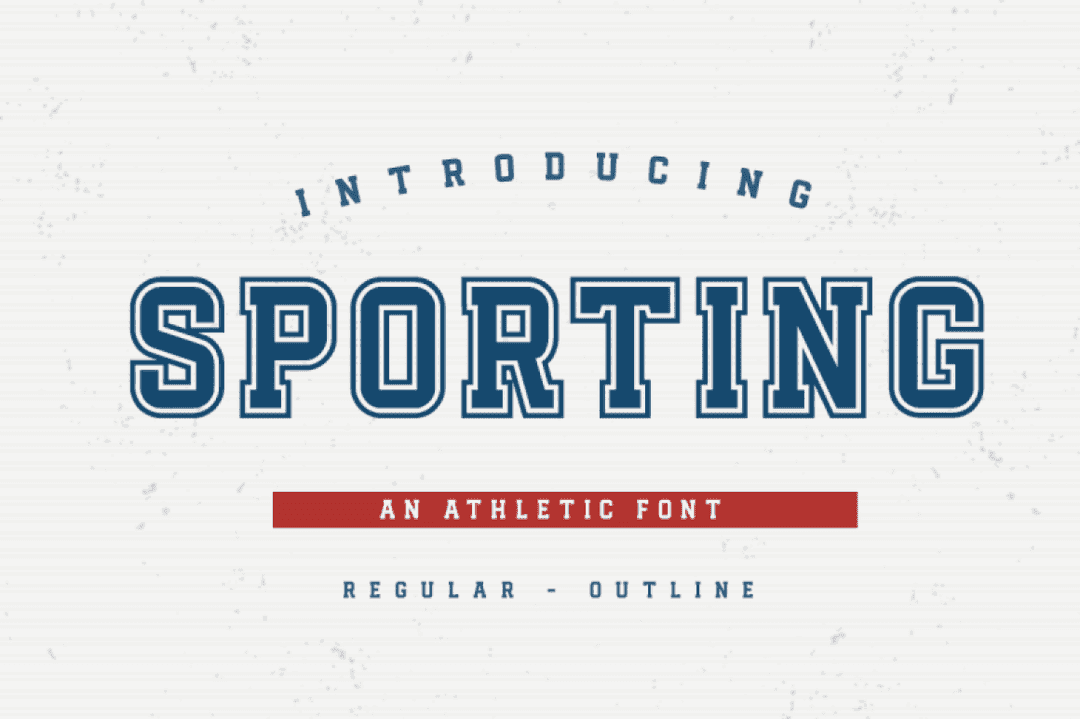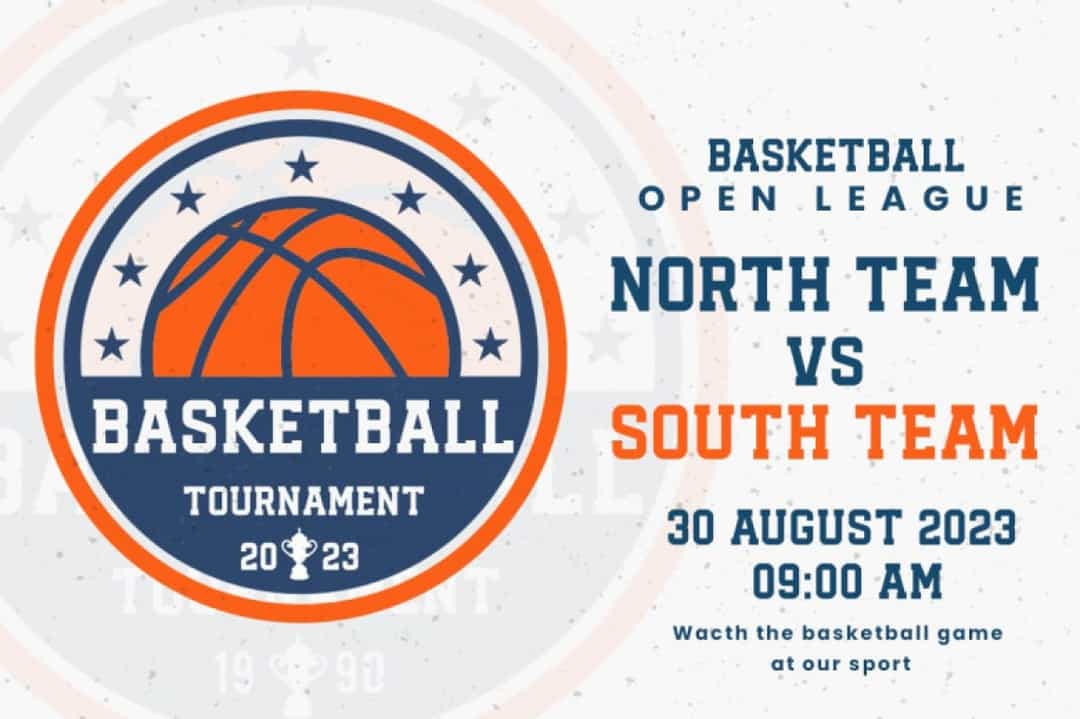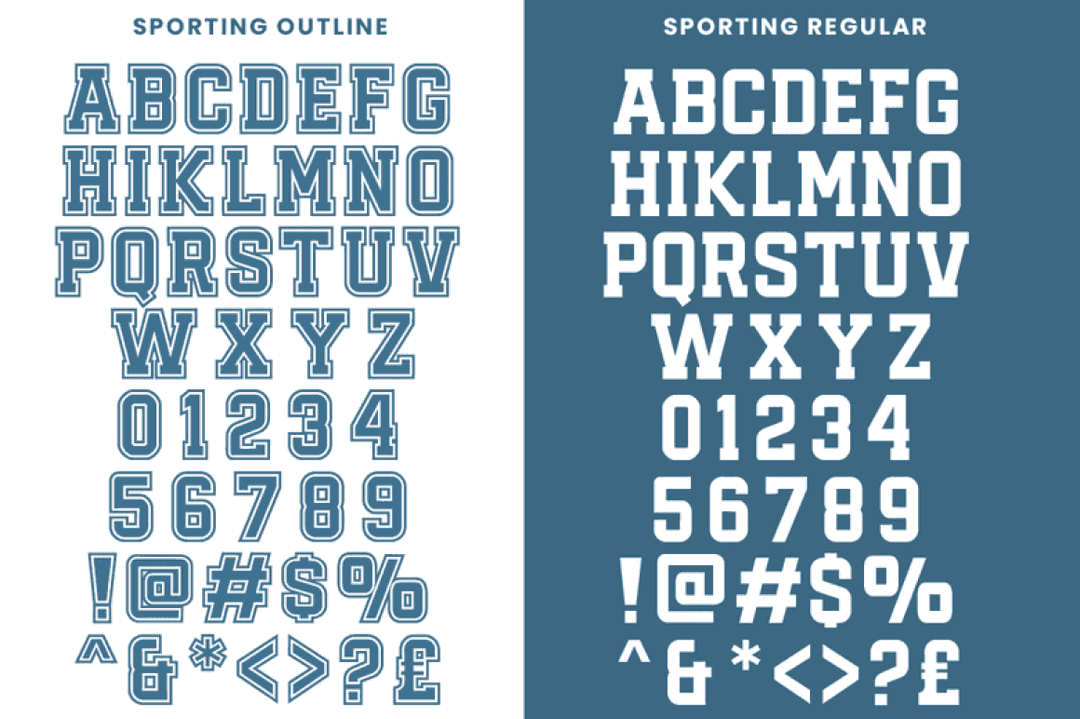
Discover Sporting Font, part of the Slab Serif Display collection—a versatile and unique font perfect for adding a personal touch to your projects. Download it for free and enjoy crafting designs with style, from invitations to social media posts. This font is available exclusively for personal use, giving you the freedom to create without limits. Unlock your creativity with Sporting Font today!
Sportsing is an engaging and beautiful graphic font designed specifically to be used as an attention-grabbing display in designs related to sports such as jerseys, posters, T-shirts and logos. Also suitable for merchandise advertising sites and posters.